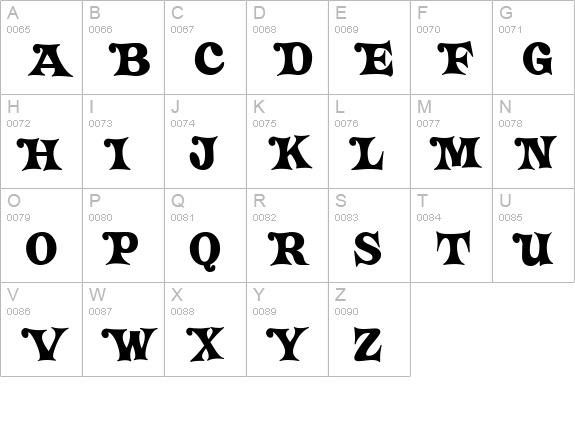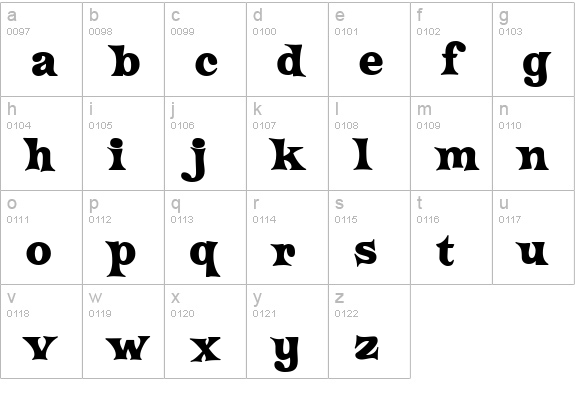
Crazy HaroldFlare font is a whimsical and playful typeface that is sure to make your designs stand out. With its unique flair and eye-catching details, this font is perfect for projects that require a touch of fun and excitement. The exaggerated letterforms and wacky accents give Crazy HaroldFlare a truly one-of-a-kind look that will grab attention and leave a lasting impression. The best part? Crazy HaroldFlare font is available for free download at FontsMarket.com. That's right, you can add this dynamic font to your collection without spending a dime. Whether you're working on a poster, flyer, logo, or any other creative project, Crazy HaroldFlare will add a burst of energy and personality that is sure to make your work pop. Download it now and let your imagination run wild with Crazy HaroldFlare font!